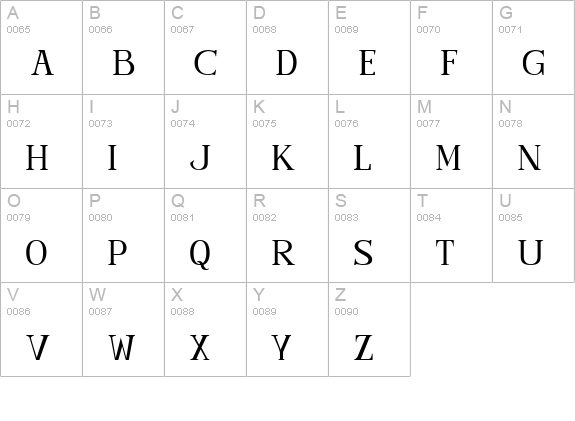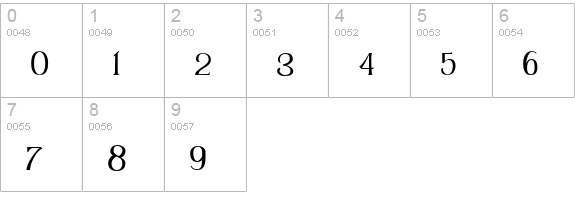
Shavina serif family font is a sophisticated and versatile typeface that exudes elegance and professionalism. With its sleek serifs and balanced proportions, Shavina is perfect for a wide range of design projects, from branding to editorial design. The font family includes a variety of weights and styles, allowing for endless creative possibilities.